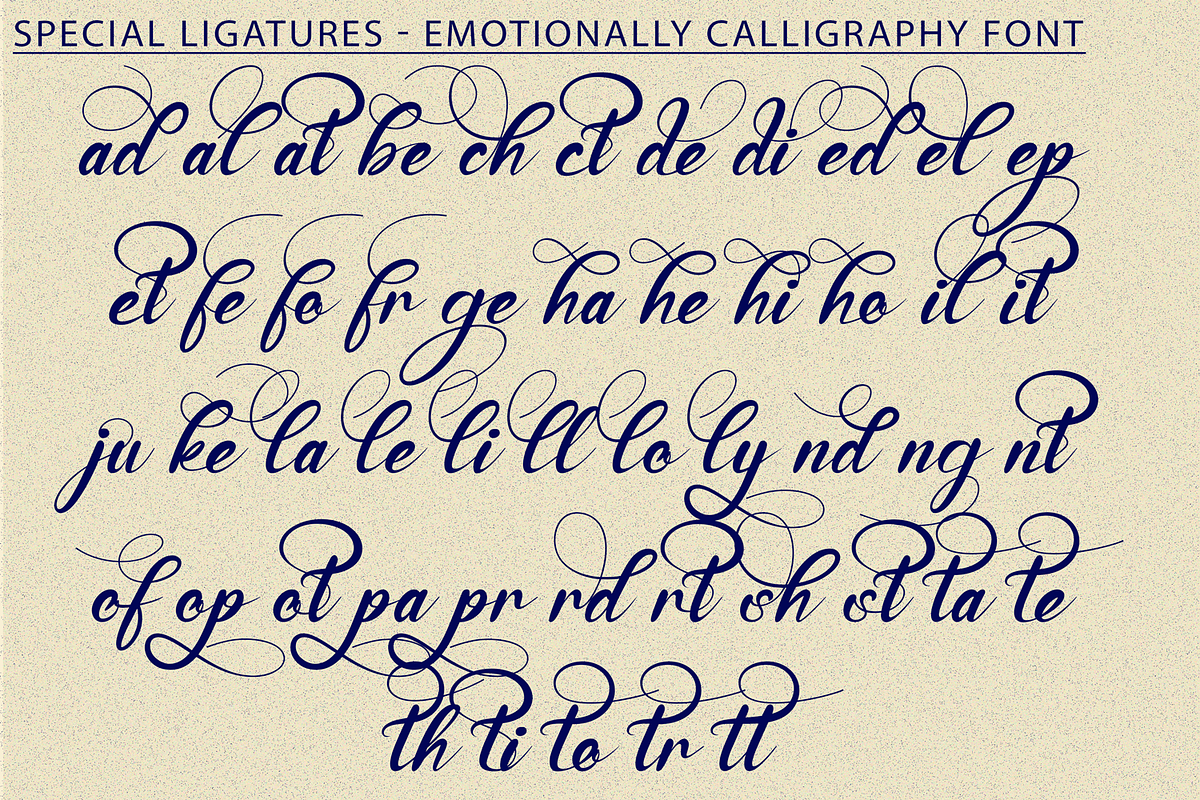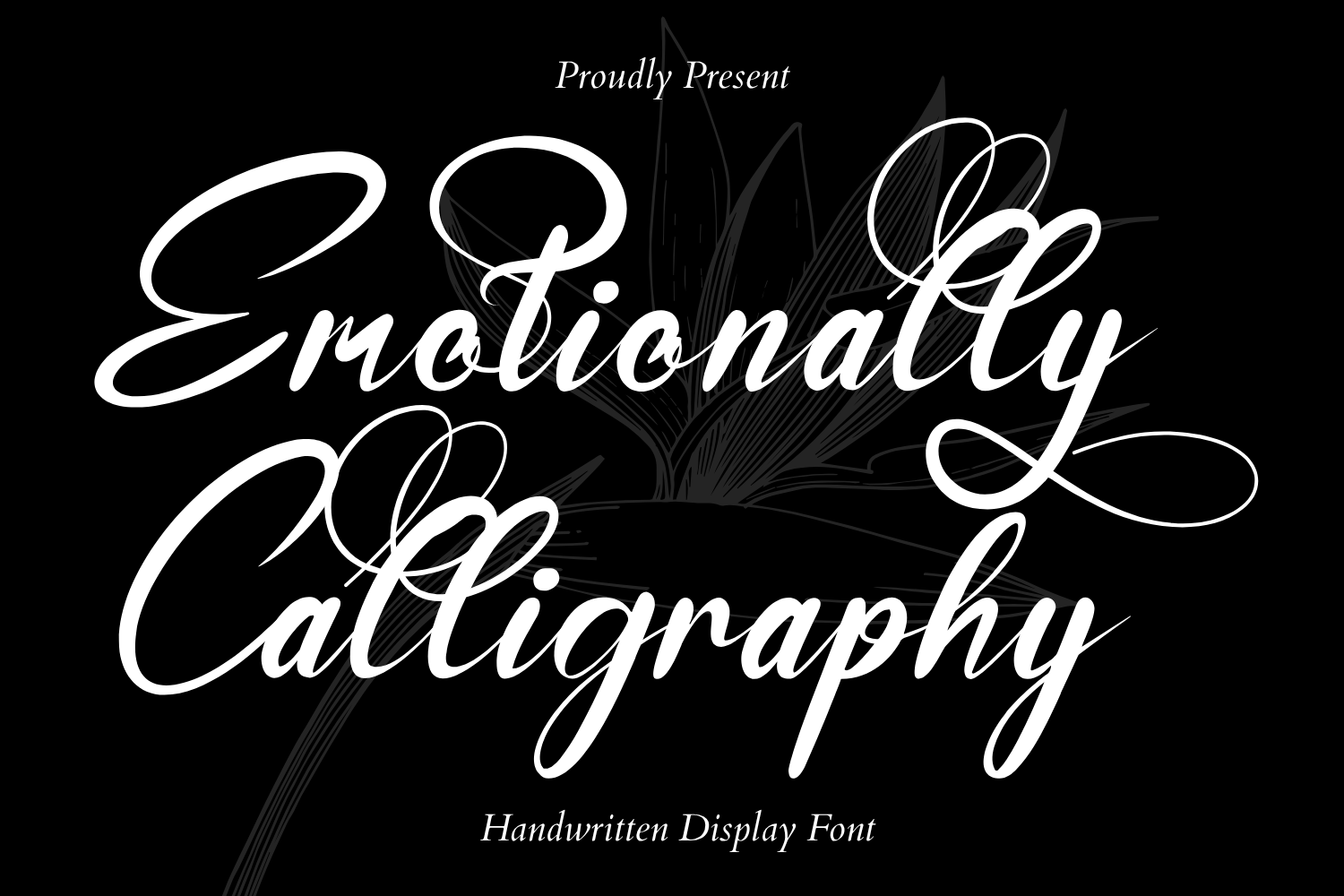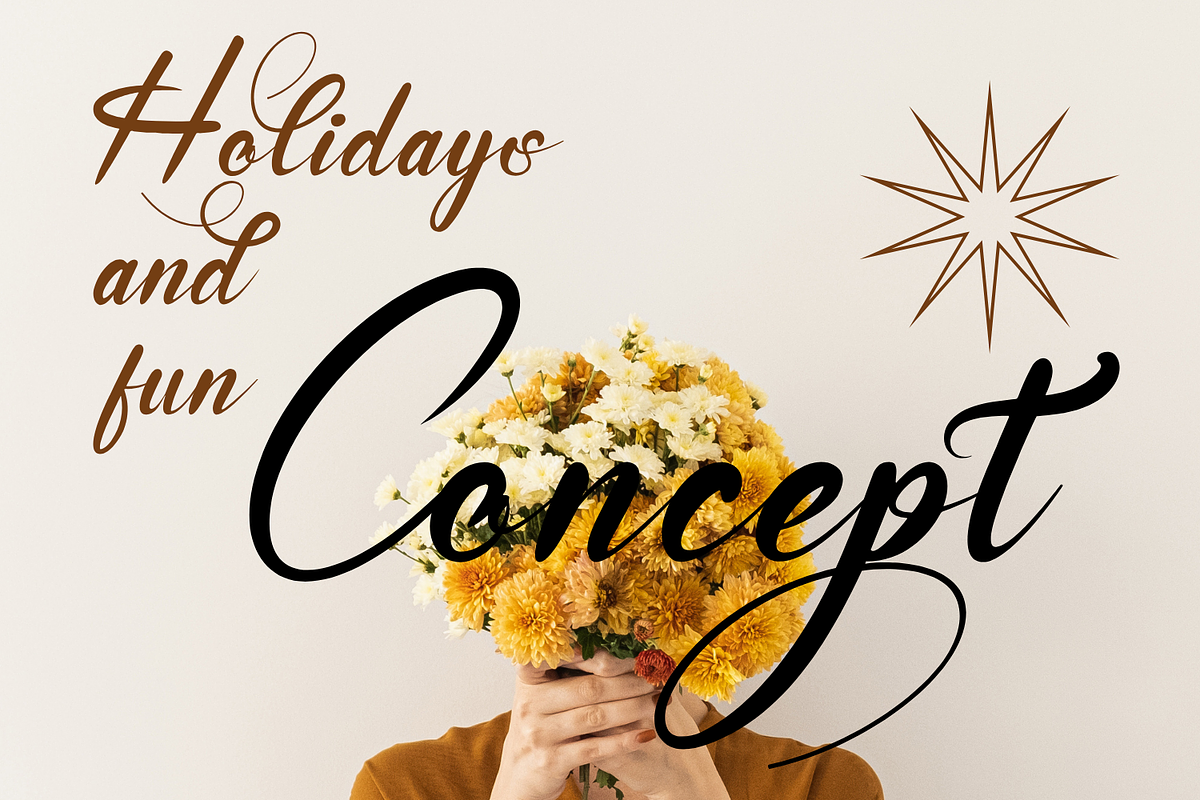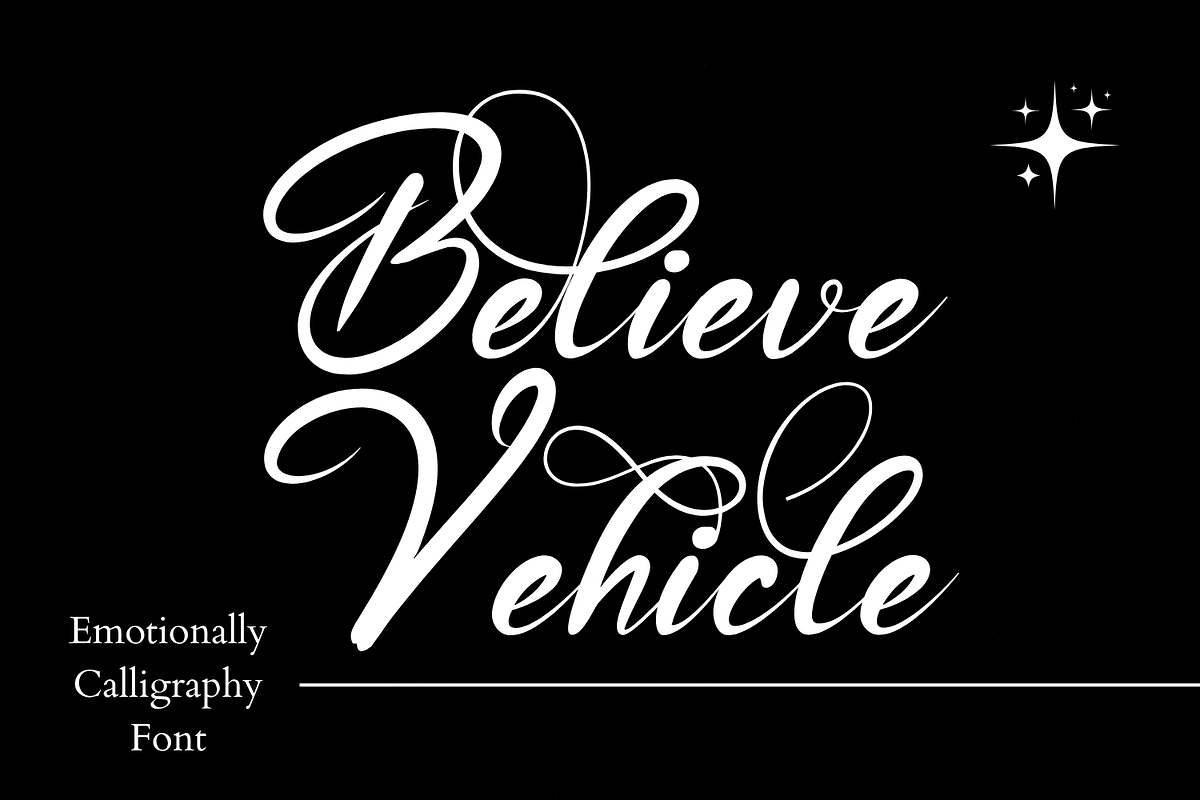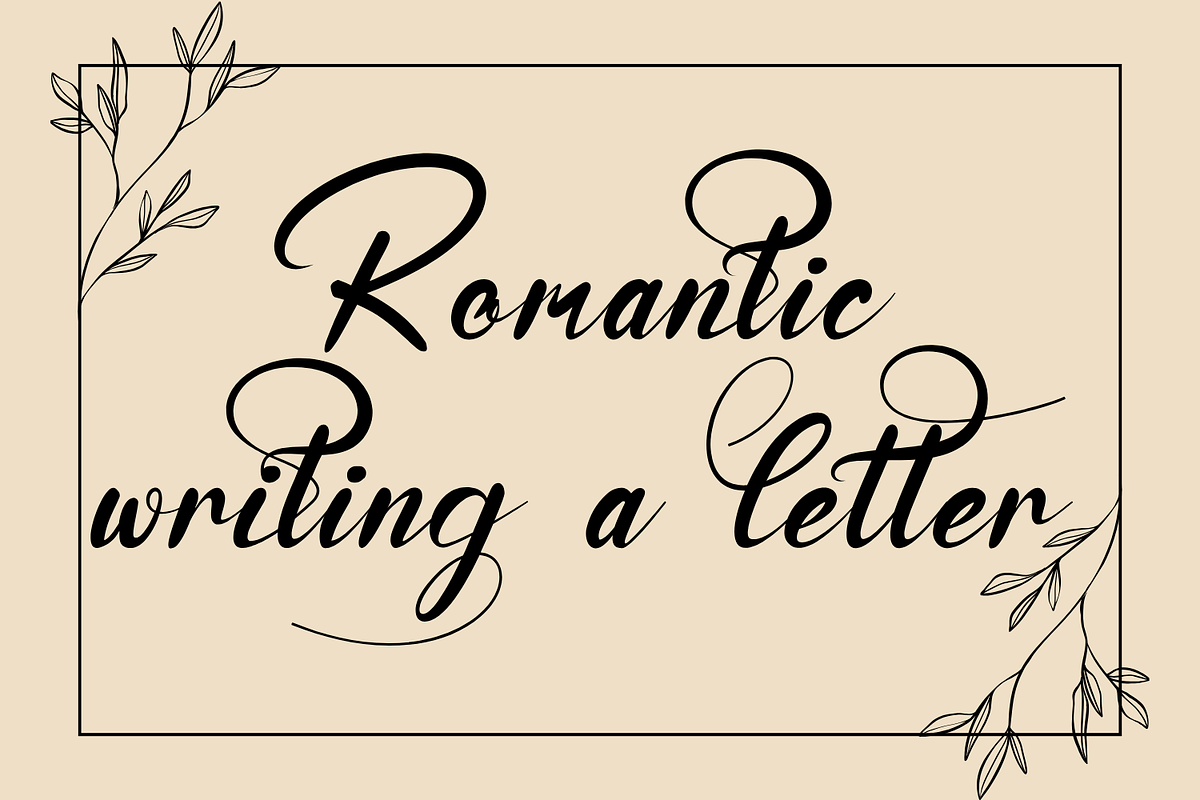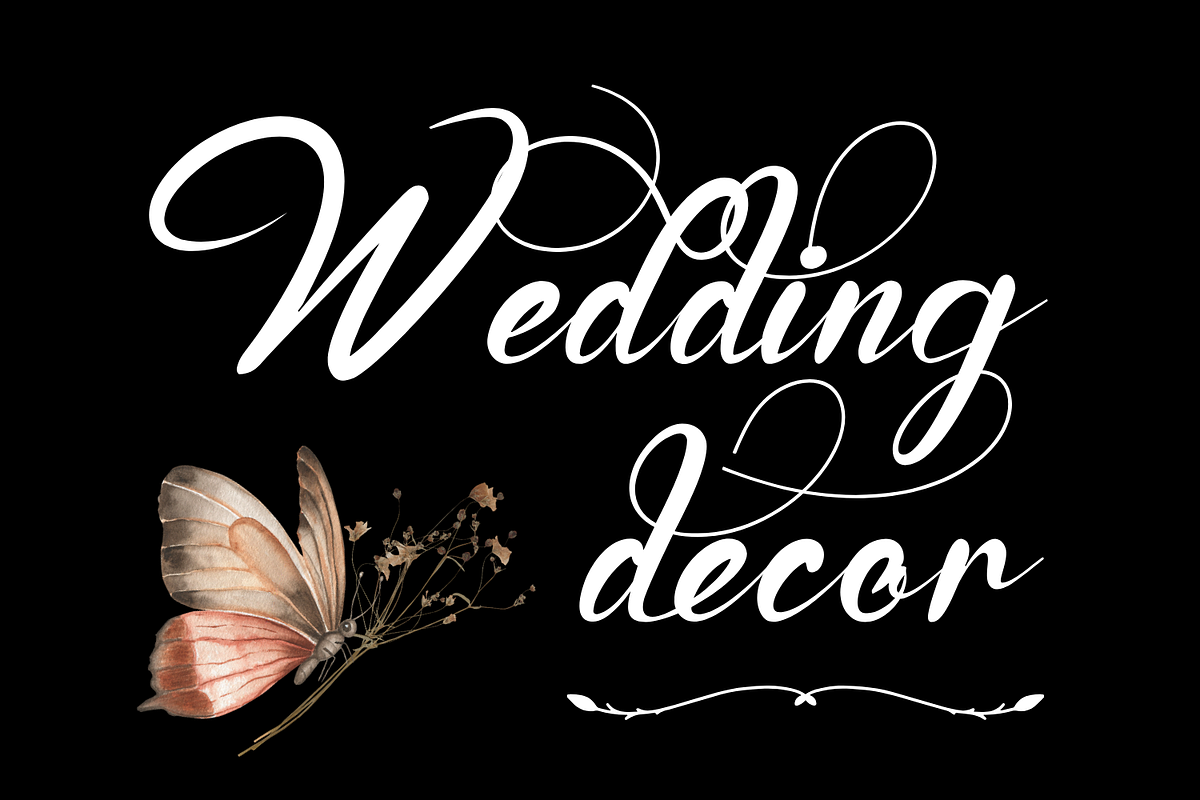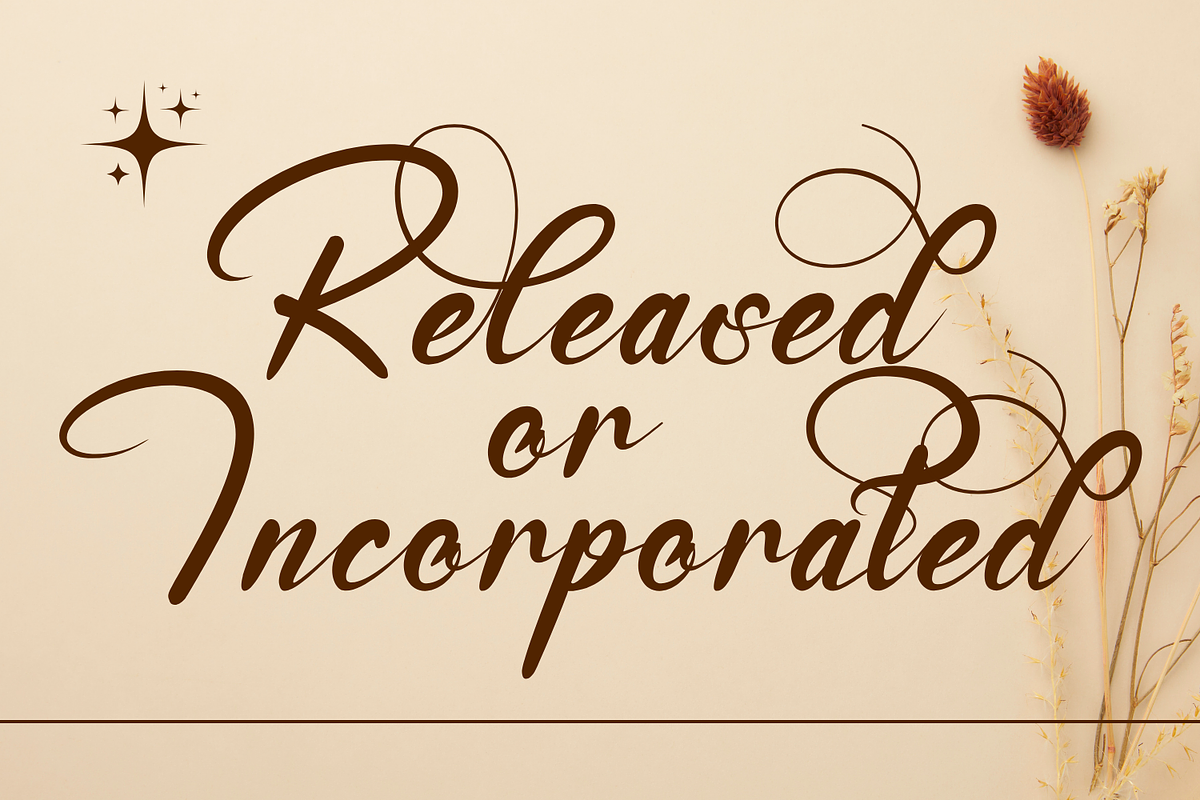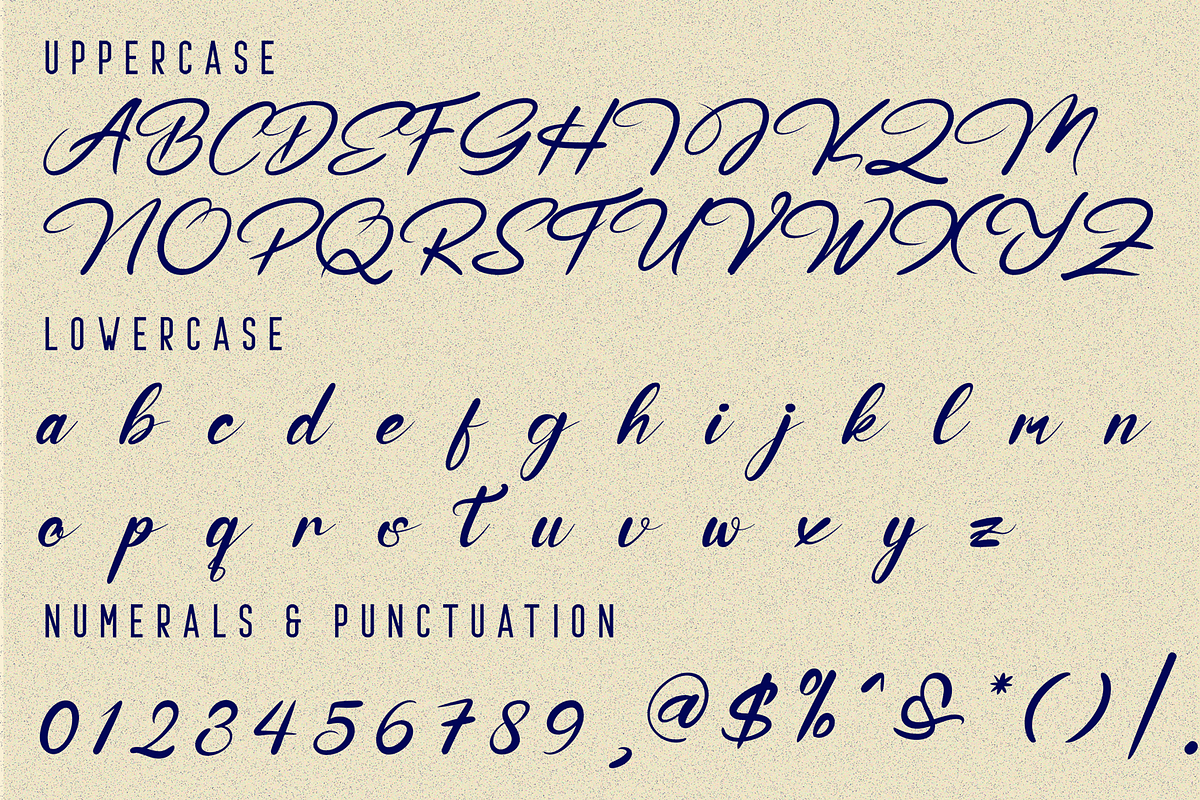
Emotionally Calligraphy Font
Emotionally Calligraphy Font, a modern calligraphy script font crafted with graceful curves and expressive strokes. This font captures the elegance of handwritten artistry, blending sophistication with warmth to elevate your creative projects. Each letter flows naturally into the next, creating stunning visual harmony that works beautifully across both digital and print designs.
- Uppercase & Lowercase Letters
- Special Ligatures for natural handwriting connections
- Numerals & Punctuation for versatile use
- Accented Characters for multilingual support